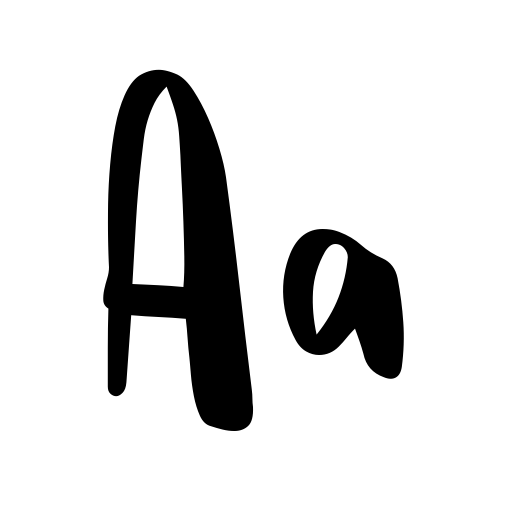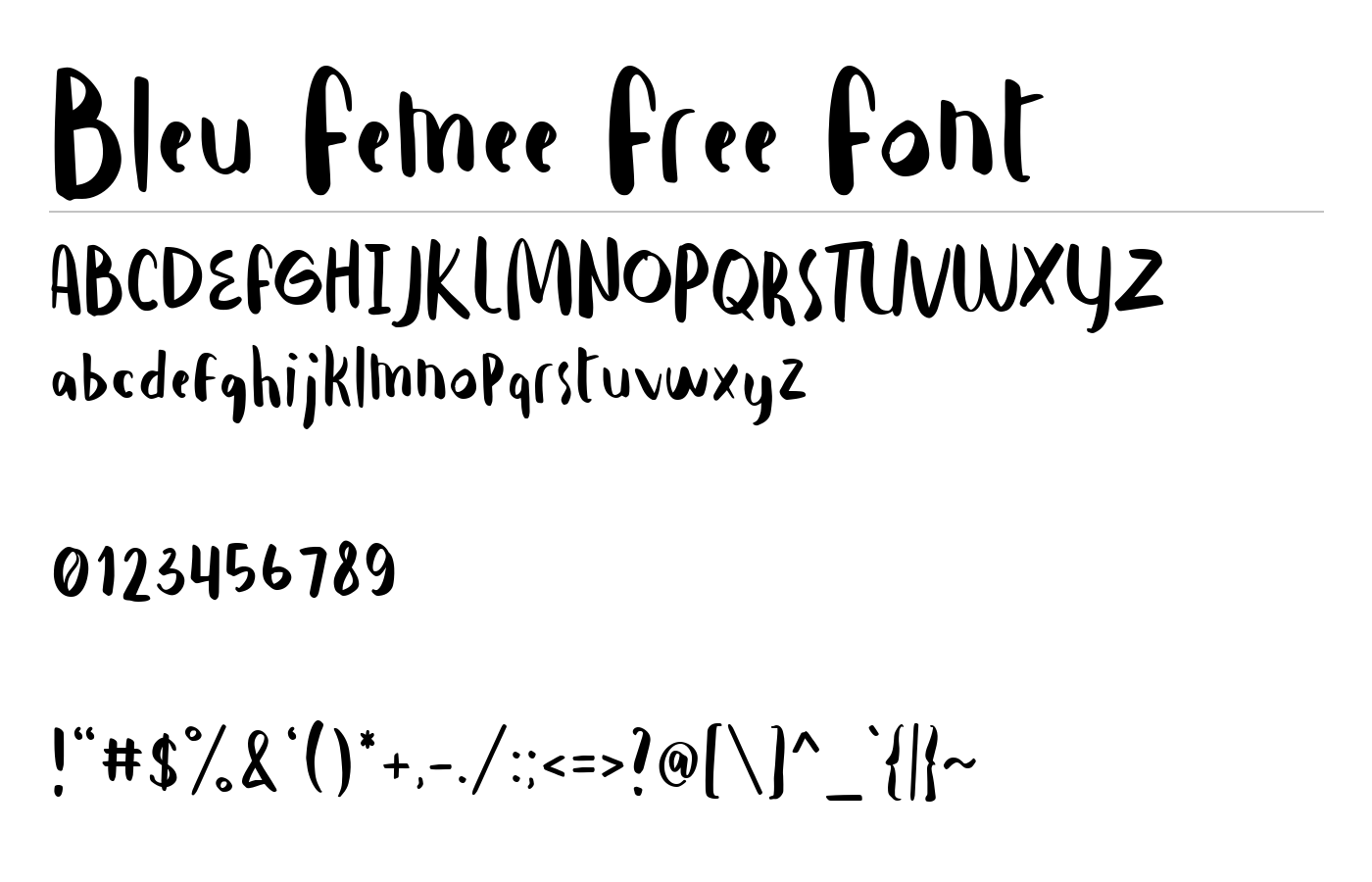
Bleu Femee is a playful, hand-drawn sans serif font with a friendly and casual vibe. Its irregular strokes, tall x-height, and lively letterforms make it perfect for creative projects, informal branding, and fun headlines that need a personal touch. This font works well in designs looking to convey warmth and approachability, such as children's books, event invitations, and artisanal packaging.
Bleu Femee Free Font
About Bleu Femee Free Font